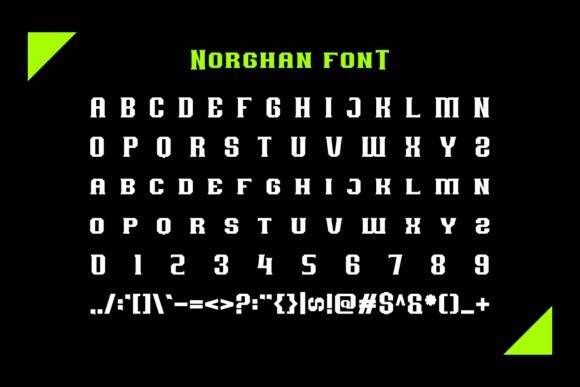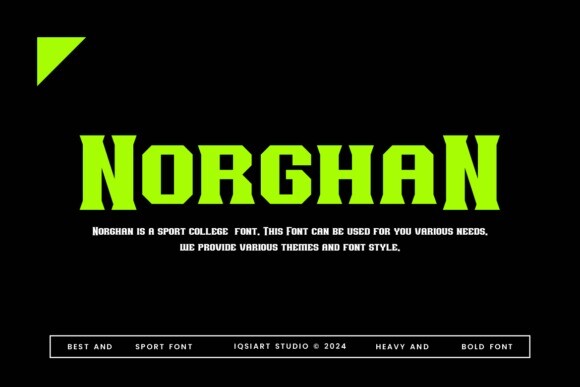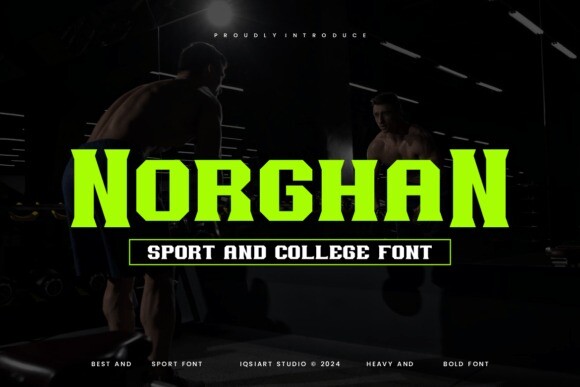
Norghan Font
Norghan Font is a classic serif font inspired by sports and college designs. Its bold, strong letters give it a timeless and athletic look, making it great for school logos, team names, and sporty projects!